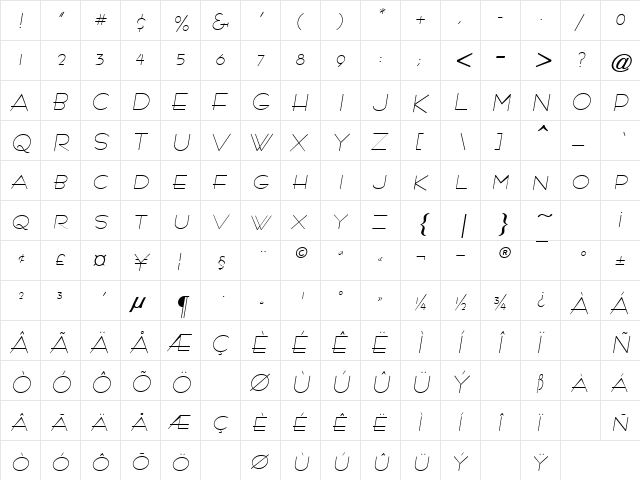
RamoseCaps Oblique Font Preview
RamoseCaps Oblique
RamoseCaps Oblique Font Details
Design Context for RamoseCaps Typeface
RamoseCaps is a composed and adaptable typeface that performs quietly and consistently across a wide range of design contexts. Its italic angle brings a sense of urgency and motion to the letterforms.